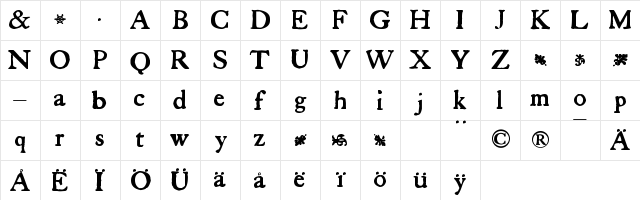
Complete Tuer's Cardboard Regular glyph index. Displaying only characters natively supported by Tuer's Cardboard Regular font.
Tuer's Cardboard is a composed and adaptable typeface that performs quietly and consistently across a wide range of design contexts.